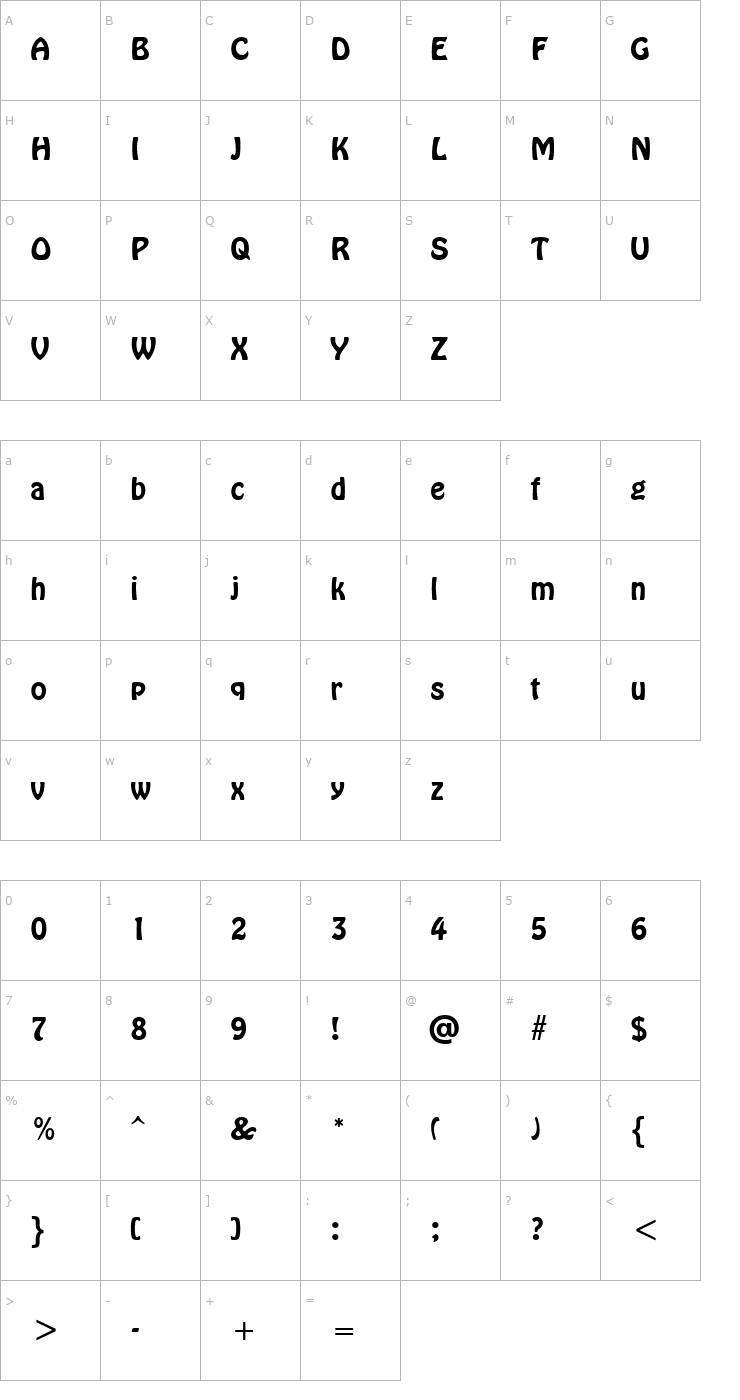
Hobo Medium Font
Hobo Medium Font - A decorative typeface with 1 style, available from adobe fonts. It is characterized by its bold, geometric. Web explore hobo designed by morris fuller benton at adobe fonts.
Web explore hobo designed by morris fuller benton at adobe fonts. A decorative typeface with 1 style, available from adobe fonts. It is characterized by its bold, geometric.
It is characterized by its bold, geometric. A decorative typeface with 1 style, available from adobe fonts. Web explore hobo designed by morris fuller benton at adobe fonts.
A decorative typeface with 1 style, available from adobe fonts. Web explore hobo designed by morris fuller benton at adobe fonts. It is characterized by its bold, geometric.
It is characterized by its bold, geometric. A decorative typeface with 1 style, available from adobe fonts. Web explore hobo designed by morris fuller benton at adobe fonts.
It is characterized by its bold, geometric. Web explore hobo designed by morris fuller benton at adobe fonts. A decorative typeface with 1 style, available from adobe fonts.
Web explore hobo designed by morris fuller benton at adobe fonts. A decorative typeface with 1 style, available from adobe fonts. It is characterized by its bold, geometric.
It is characterized by its bold, geometric. A decorative typeface with 1 style, available from adobe fonts. Web explore hobo designed by morris fuller benton at adobe fonts.
Web explore hobo designed by morris fuller benton at adobe fonts. A decorative typeface with 1 style, available from adobe fonts. It is characterized by its bold, geometric.
It is characterized by its bold, geometric. A decorative typeface with 1 style, available from adobe fonts. Web explore hobo designed by morris fuller benton at adobe fonts.
Web explore hobo designed by morris fuller benton at adobe fonts. A decorative typeface with 1 style, available from adobe fonts. It is characterized by its bold, geometric.
It Is Characterized By Its Bold, Geometric.
A decorative typeface with 1 style, available from adobe fonts. Web explore hobo designed by morris fuller benton at adobe fonts.